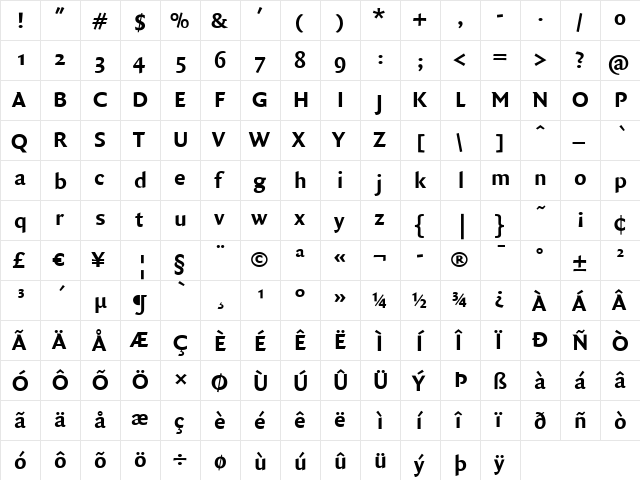
QuadraatSans Bold
Design Context for QuadraatSans Typeface
QuadraatSans offers clean, dependable letterforms without strong stylistic allegiance, making it a practical choice for designers who need flexibility. Its bold stroke weight gives it real presence on the page.
Pro Tip: Use QuadraatSans in both headline and body roles to test its range before committing to a single application.